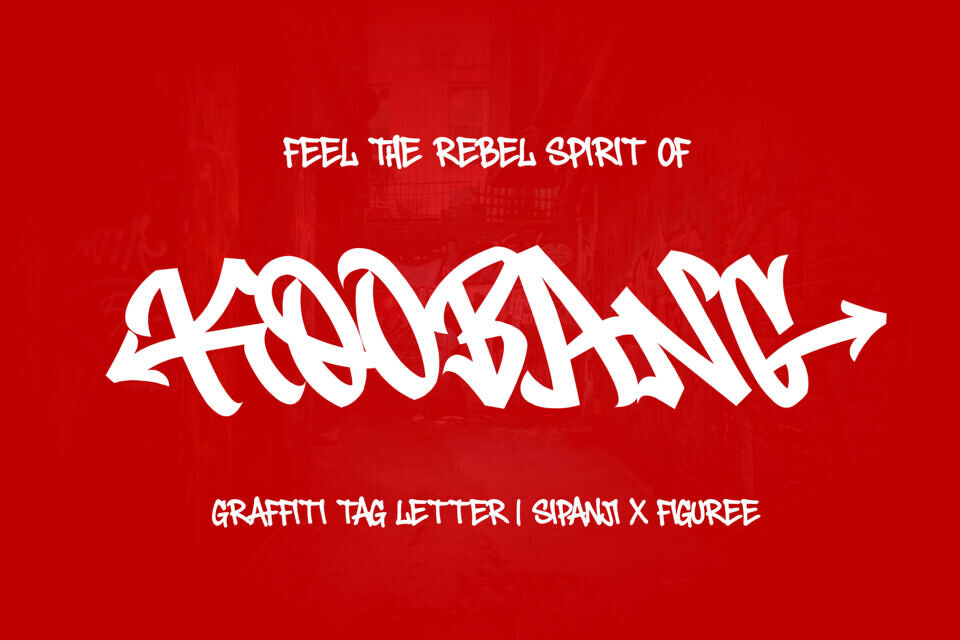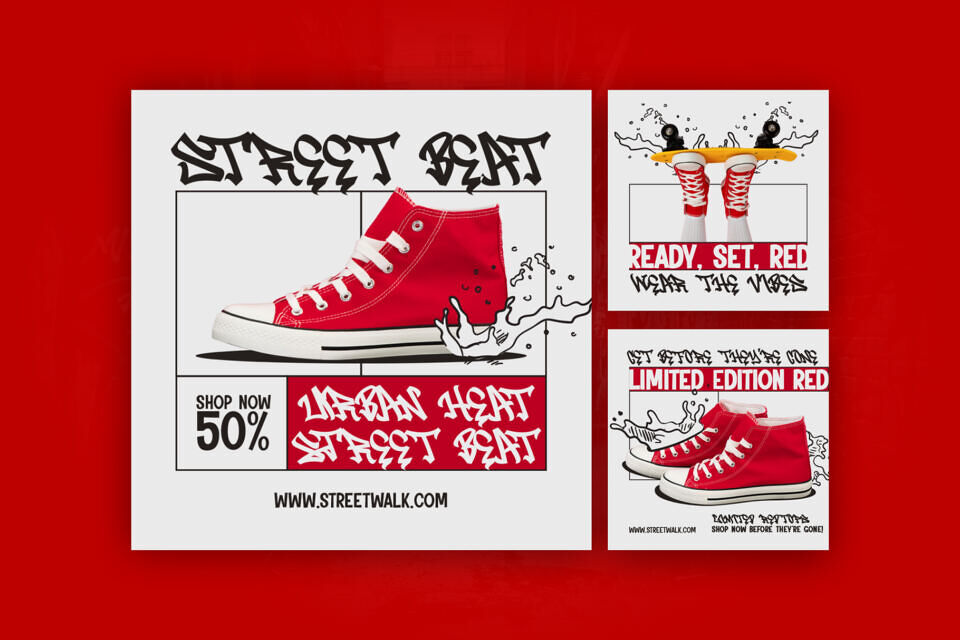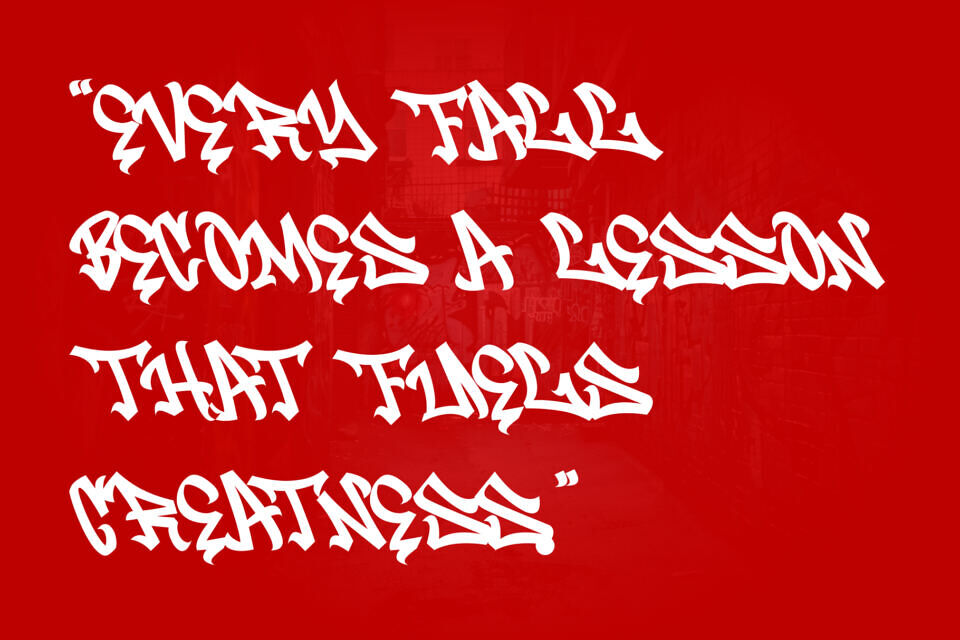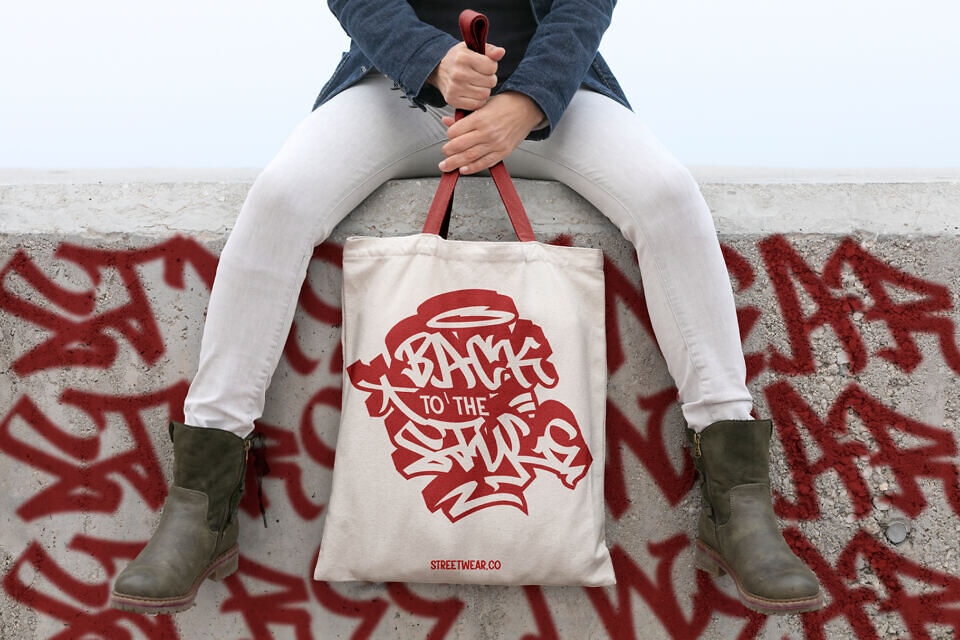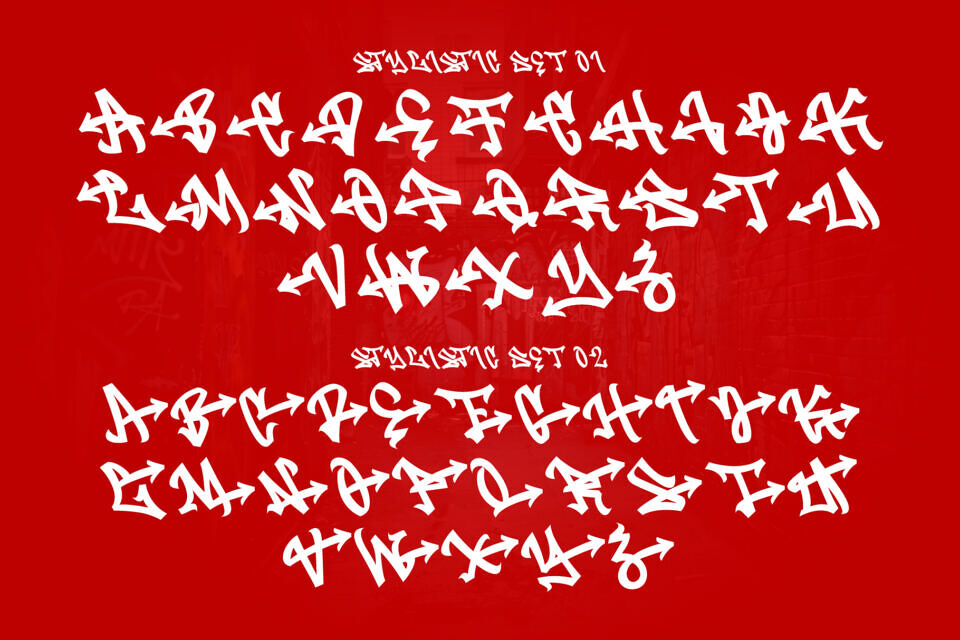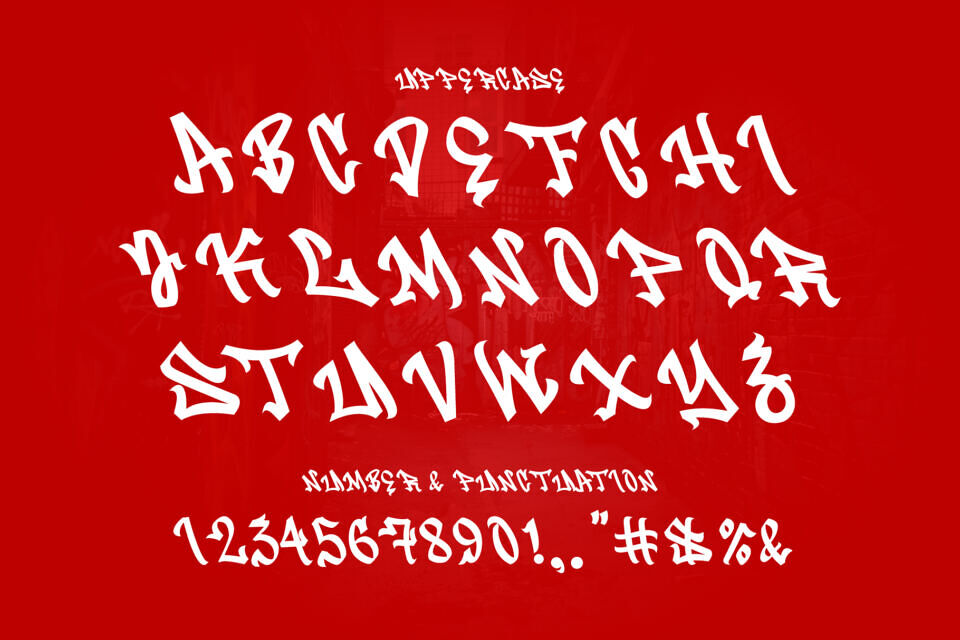
Infuse your designs with the heartbeat of the city using Koobang, a monoline graffiti tag font by Cikareotype Studio. Inspired by authentic street tagging and marker lettering, Koobang blends fearless graffiti energy with professional readability. Its fluid strokes, uppercase characters, multilingual support, and stylistic alternates make it ideal for branding, apparel, music covers, posters, and digital media.
Koobang ensures smooth performance across major design platforms. Express movement, confidence, and true street attitude with a font crafted for creative freedom and bold visual impact.